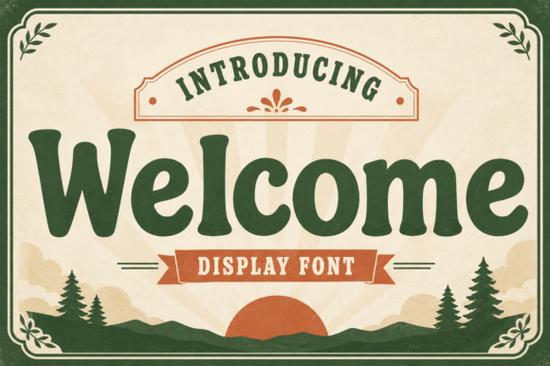
Looking for a slab serif typeface that brings warmth and personality to your designs? The Welcome Font is a bold, vintage-inspired display typeface with rounded curves and retro character details. It works beautifully across branding, signage, and merchandise projects. Whether you're a designer, crafter, or small business owner, this font delivers a friendly yet confident look that draws attention without feeling aggressive.
What makes this slab serif font stand out?
Slab serif fonts are known for their strong, block-like serifs, but Welcome takes a softer approach. Its characters have rounded edges and slightly playful proportions that give it a nostalgic, mid-century feel. This isn't a stiff, corporate typeface it's the kind of font that makes people smile when they see it on a café chalkboard or a kids' t-shirt design.
The bold weight ensures strong visibility at large sizes, which makes it ideal for:
- Logo design and brand identity kits
- Signage for shops, cafés, and events
- Headlines on posters, flyers, and social media graphics
- Children's products like book covers, packaging, and apparel
- Print-on-demand merchandise such as mugs, tote bags, and t-shirts
Who is this font best suited for?
This font works well for anyone who needs a typeface that feels approachable but still makes a statement. Here are a few specific use cases:
Small business owners If you're building a brand that needs to feel warm and inviting (think bakeries, florists, or boutique shops), Welcome gives your visuals a friendly personality. It pairs nicely with clean sans-serifs for body text.
Print-on-demand sellers Bold display fonts like this one tend to perform well on merchandise because they're easy to read from a distance and carry visual weight. If you sell on platforms like Redbubble or Etsy, Welcome can help your designs stand out in crowded search results.
Teachers and educators Its rounded, approachable letterforms make it a good fit for classroom materials. For a complementary option with a playful classroom vibe, check out the Cute Teacher display font, which works well alongside Welcome for education-themed projects.
Event planners Wedding invitations, party decorations, and welcome signs are natural fits. The name says it all this font was practically designed for greeting people.
How does it compare to other display fonts?
Every display font has its own personality. If you're exploring different styles, here's how Welcome stacks up against some other popular options:
Welcome holds its own in this lineup by offering something different: a warm, retro feel that doesn't lean too far into any single theme. It's versatile enough to use year-round across many types of projects.
What fonts pair well with Welcome?
A good display font works even better when paired with the right companion. Here are a few suggestions:
- Welcome + a clean sans-serif (like Montserrat or Open Sans) Great for modern branding that needs a retro accent in the headline.
- Welcome + a handwritten script Works well for wedding invitations or boutique packaging where you want a mix of structured and organic letterforms.
- Welcome + a simple monospace font Creates an interesting contrast for editorial layouts or website headers.
- Test it at different sizes Welcome looks its best at larger display sizes, so check how it renders for your specific use case
- Pair it wisely Choose a complementary body font that doesn't compete for attention